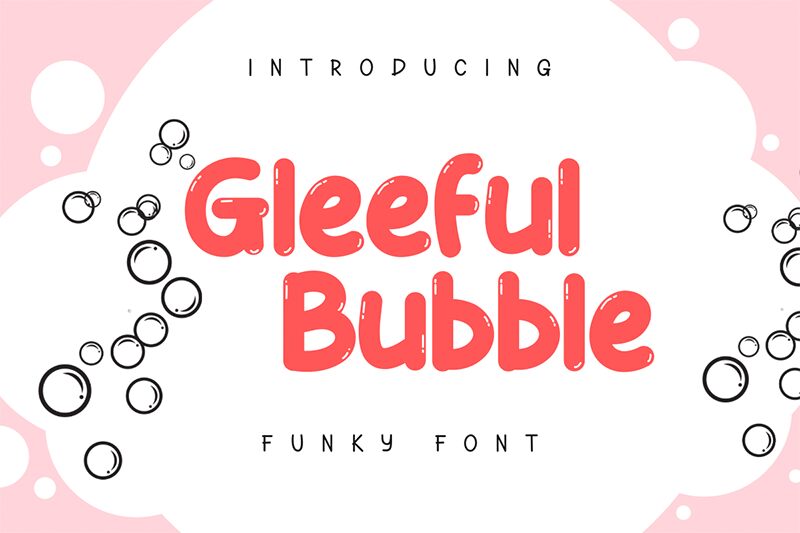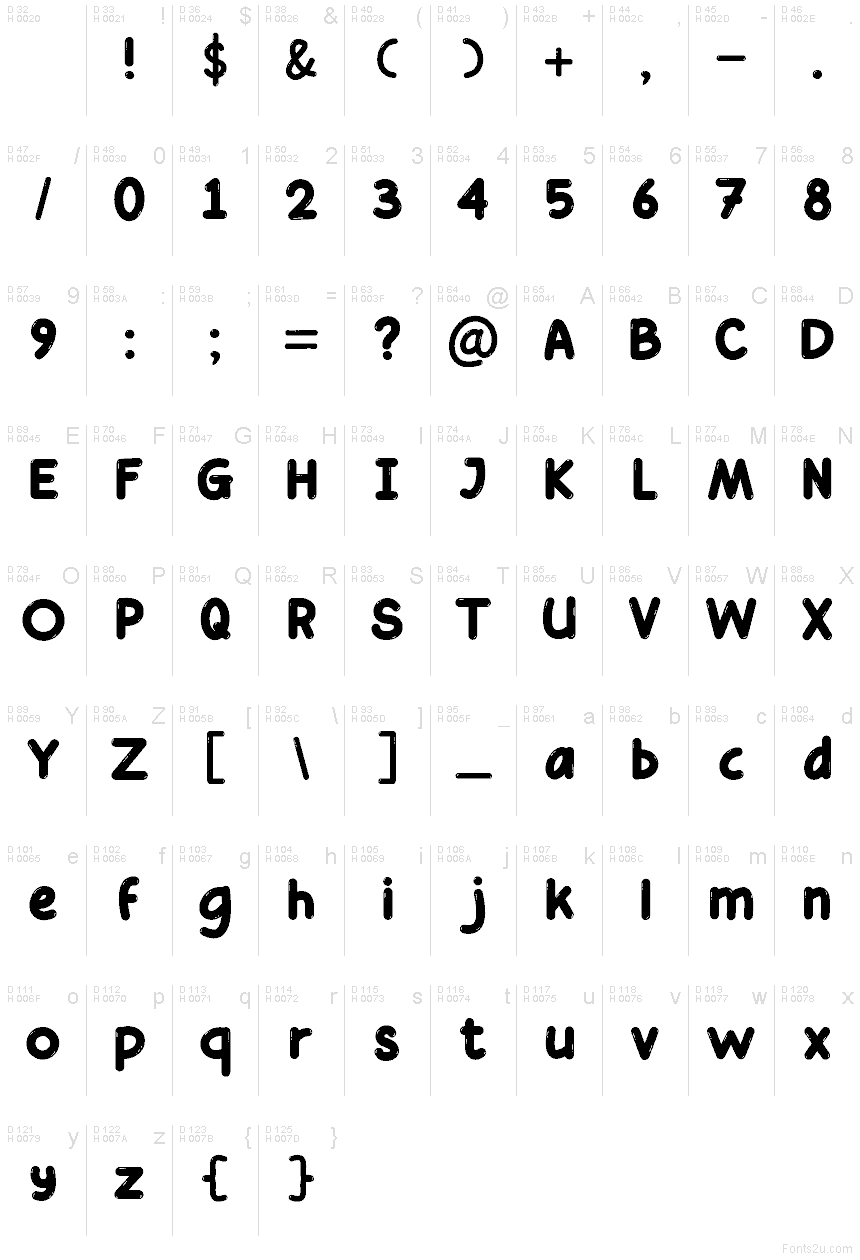
Gleeful Bubble Regular
Gleeful Bubble font by Insan Perkasya is a playful and bubbly display font with rounded characters. Its cartoon style and vibrant design make it a modern, cheerful set of characters for audiences of all ages. This typography is youthful, energetic, and unpredictable just like the rest of your favorite cartoon shows.
Gleeful Bubble includes letters that look great in sets of two or more in applications like games, books, school projects, children’s products/packages, advertising campaigns etc. Other uses are posters, stickers/labels, logotypes/typographies projects and any other education or entertainment-related task!